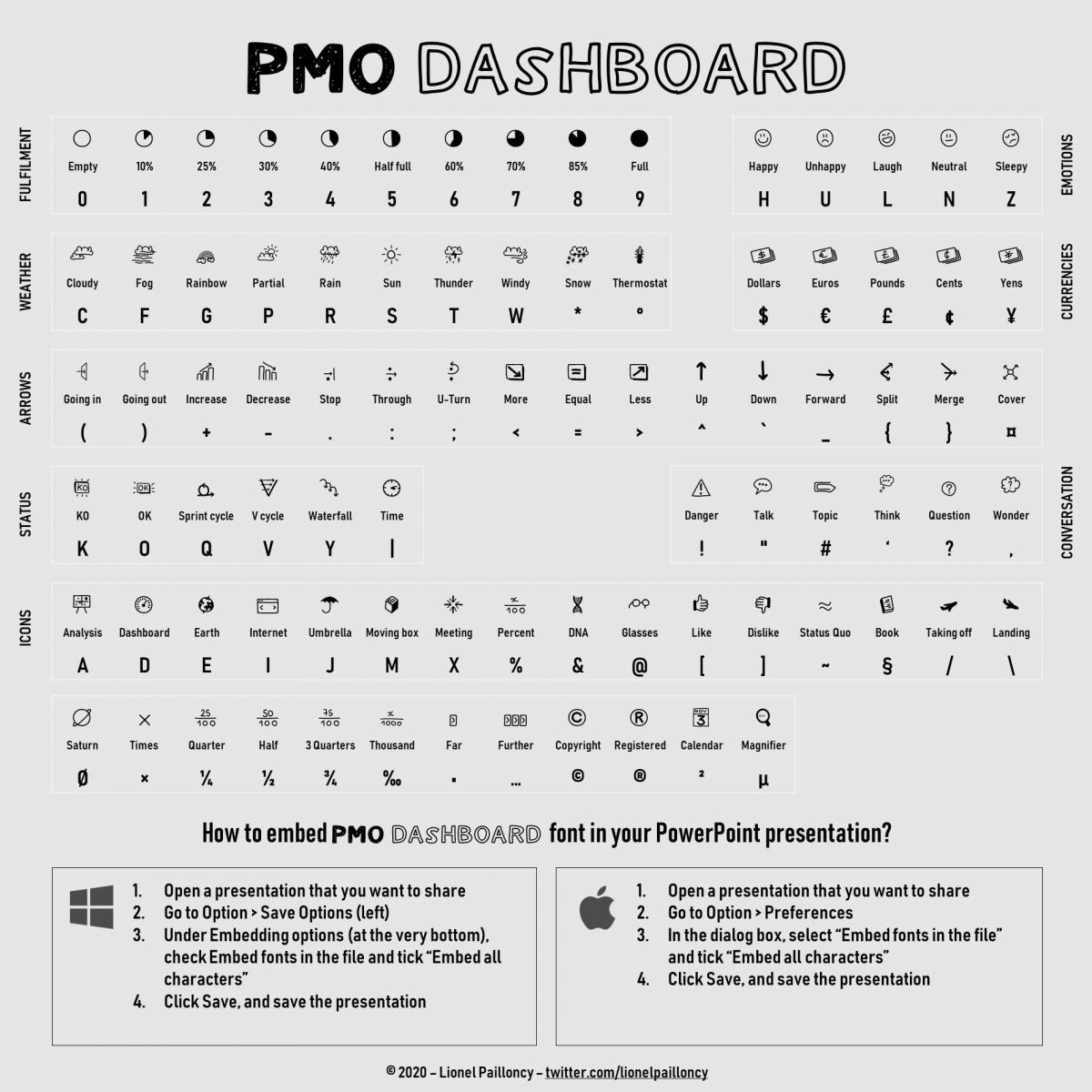
PMO Dashboard is a smart way to refresh your report presentations and illustrate your dashboards with clean and aligned icons.
The font comes with a cheat-sheet to master its use. Have fun!
- Designer: Lionel Pailloncy